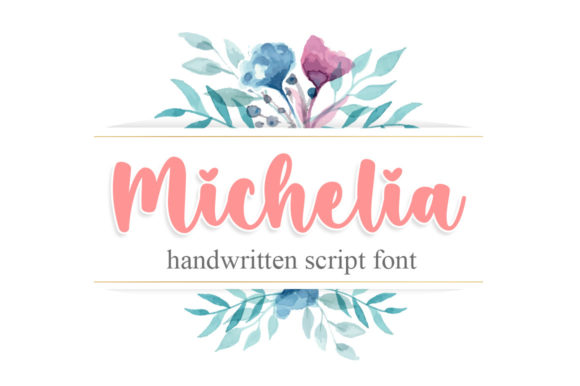
Michelia Font
**Michelia: Unleash the Magic of Love and Romance in Your Designs**
In the realm of typography, where letters dance and characters weave their enchanting spells, Michelia emerges as a true masterpiece. This ethereal script font, crafted with the utmost care and precision, captures the essence of love, romance, and heartfelt emotions. As you behold its delicate strokes and flowing curves, you'll discover a font that breathes life into your creative endeavors.
**A Symphony of Elegance and Grace:**
Michelia is an exquisite font that dances across the digital canvas with effortless grace and elegance. Its carefully crafted characters exude a sense of harmony and balance, creating a visual feast for the eyes. Whether you're designing wedding invitations, Valentine's Day cards, or simply adding a touch of romance to your projects, Michelia seamlessly blends sophistication and charm.
**A Versatile Muse for Endless Creativity:**
With its captivating beauty and versatility, Michelia adapts effortlessly to a myriad of design concepts. Let your imagination soar as you explore its potential in branding, logos, social media graphics, and even website designs. Michelia's ability to elevate ordinary words into works of art knows no bounds.
**Feel the Love in Every Letter:**
With Michelia as your design companion, you'll infuse your projects with a touch of affection and tenderness. Its lovingly crafted characters carry the weight of emotions, allowing you to convey messages of love, joy, and heartfelt sentiments with unparalleled authenticity. Whether you're a seasoned designer or just starting your creative journey, Michelia will unlock a new realm of expression, igniting the flames of passion in your designs.
**Immerse Yourself in a World of Enchantment:**
Michelia invites you to step into a realm where dreams take shape and creativity knows no limits. Its enchanting aura will captivate your audience, drawing them into a world of pure magic. As your designs come to life, you'll witness the transformative power of Michelia, leaving a lasting impression on all who behold its beauty.
**Embrace the Michelia Experience:**
Michelia is more than just a font; it's an experience that will redefine your creative horizons. Its delicate strokes and flowing curves will awaken your senses, inspiring you to create masterpieces that resonate with emotion and elegance. Join the growing community of designers who have embraced Michelia's charm and witnessed the wonders it can bring to their projects.
**Unlock the Gateway to Timeless Beauty:**
With Michelia as your trusted design companion, you'll unlock the gateway to timeless beauty. Its enduring elegance will stand the test of time, ensuring that your creations remain relevant and captivating for years to come. As design trends evolve, Michelia will remain a steadfast source of inspiration, allowing you to craft designs that transcend the boundaries of time.